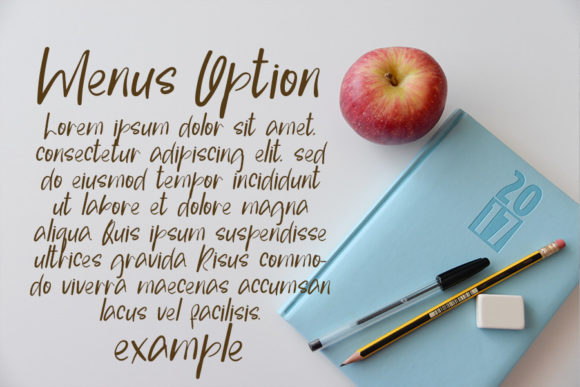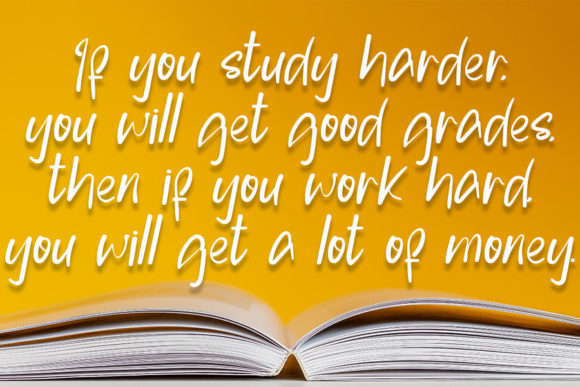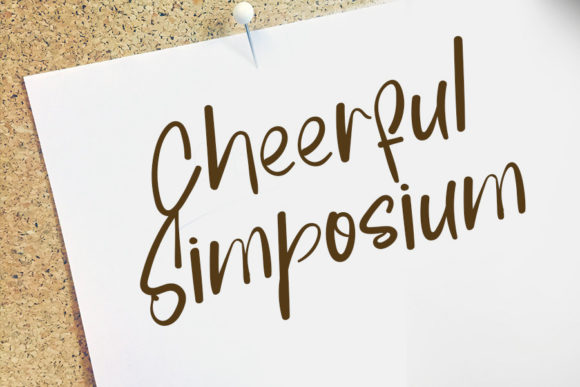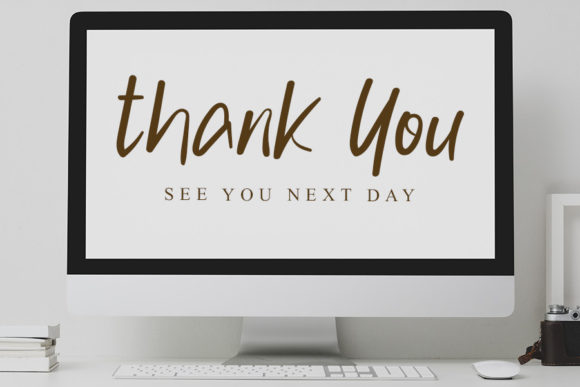
Milkshake Font
About Milkshake Font
Milkshake is a stylish and delicate handwritten font. It has a clean, relaxed and smooth vibe and it will be a hit for any design that you want to add it to. Fall in love with its incredibly versatile style and use it to create spectacular designs!